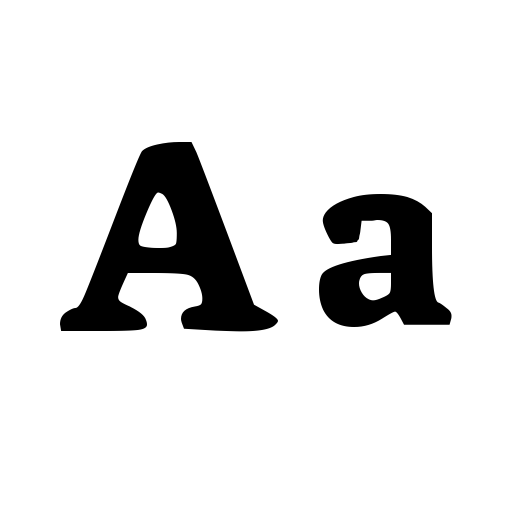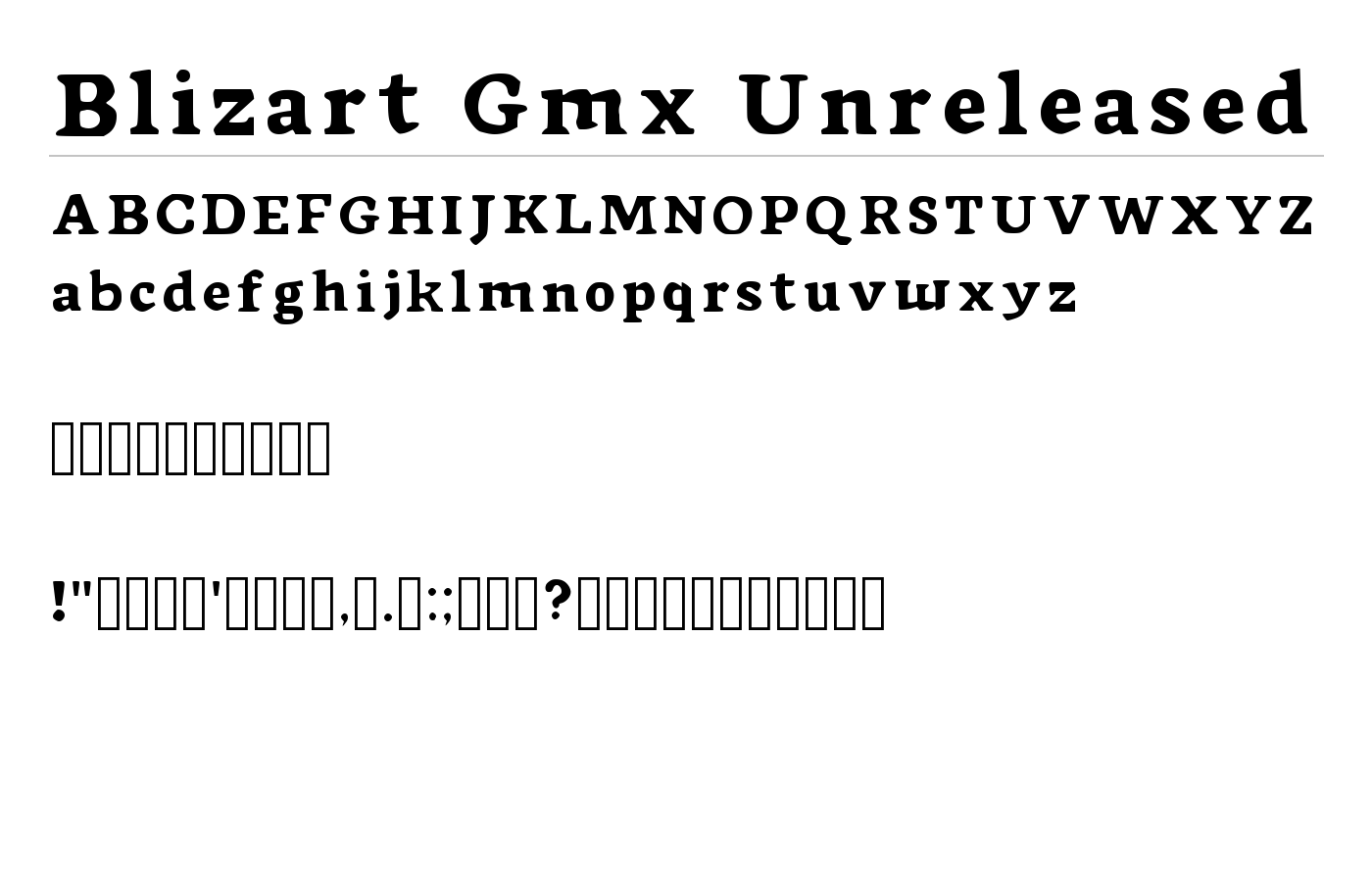
Blizart Gmx Unreleased is a bold slab serif font characterized by strong, blocky serifs and a robust, solid appearance. Its high contrast between thick strokes and minimal curves gives it a confident, vintage yet industrial feel, ideal for headlines, logos, or branding that seeks to convey strength and reliability with a touch of classic charm.
Blizart Gmx Unreleased Font